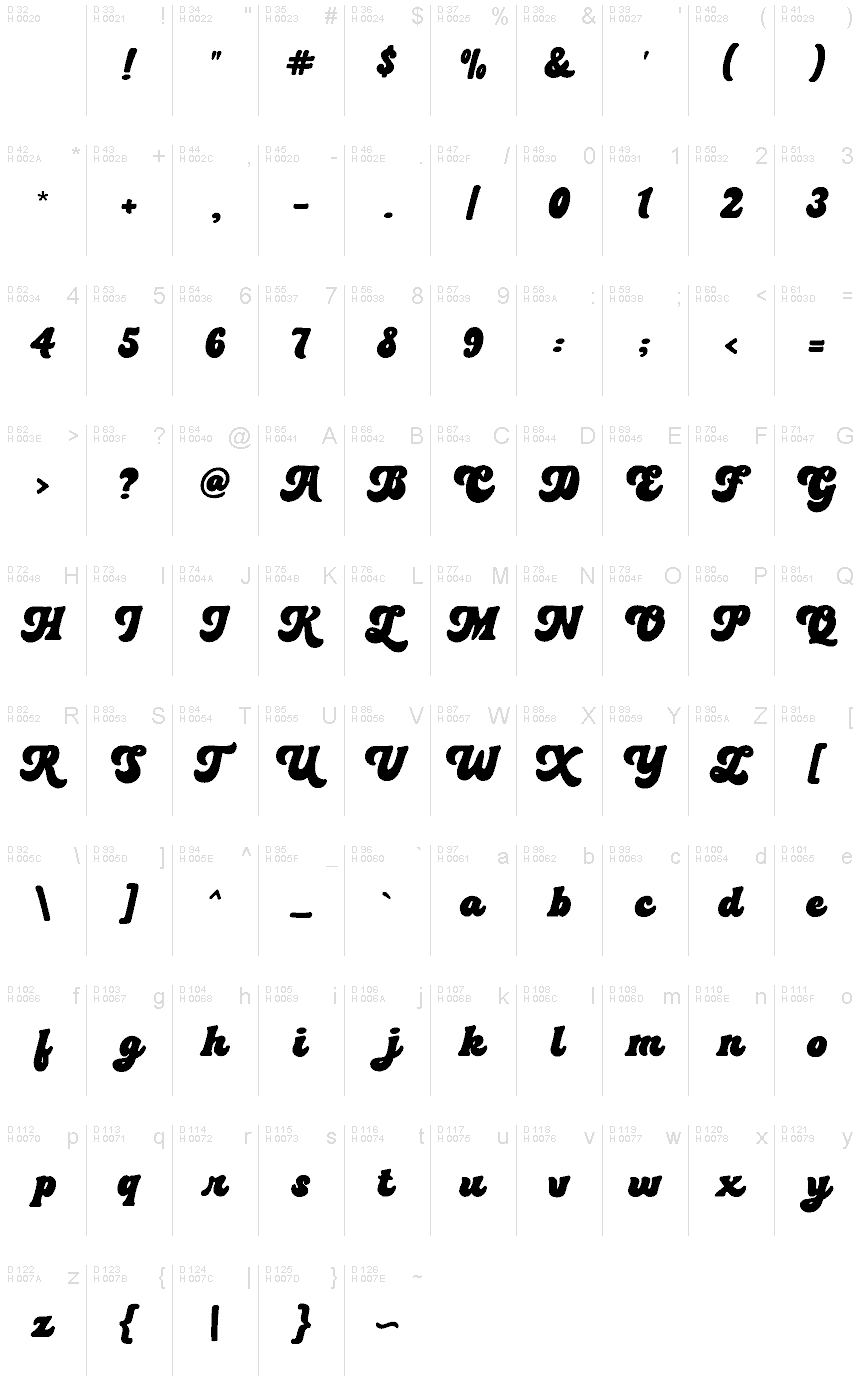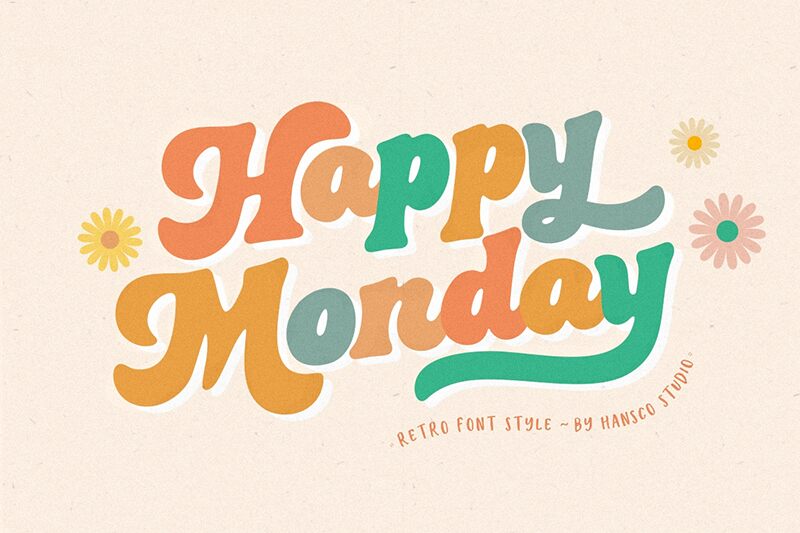
Happy Monday
Happy Monday font by HansCo is a charismatic smooth brush font with artistic features. Its thickness and bold design make for an eye-catching typeface you cannot miss, and each letter adds to the general groovy presence. Inspired by mid-20th century design styles, Happy Monday combines a retro vibe with an expressive character for a nostalgic read that reminds users why history keeps on repeating itself in the design world.
Express yourself with this free brush font and use it for product packaging designs including labels for vintage goods that instantly grab the attention of customers. Or opt for heading or subheading displays in editorials or online platforms like blogs and websites, promotions related to sales, branding purposes including logos and icons for events or institutions, cover designs for 70s rock bands albums, posters or flyers that match their energetic tone as well as groovy selections fitting of Happy Monday’s nature monochrome photography adorned with quotes!